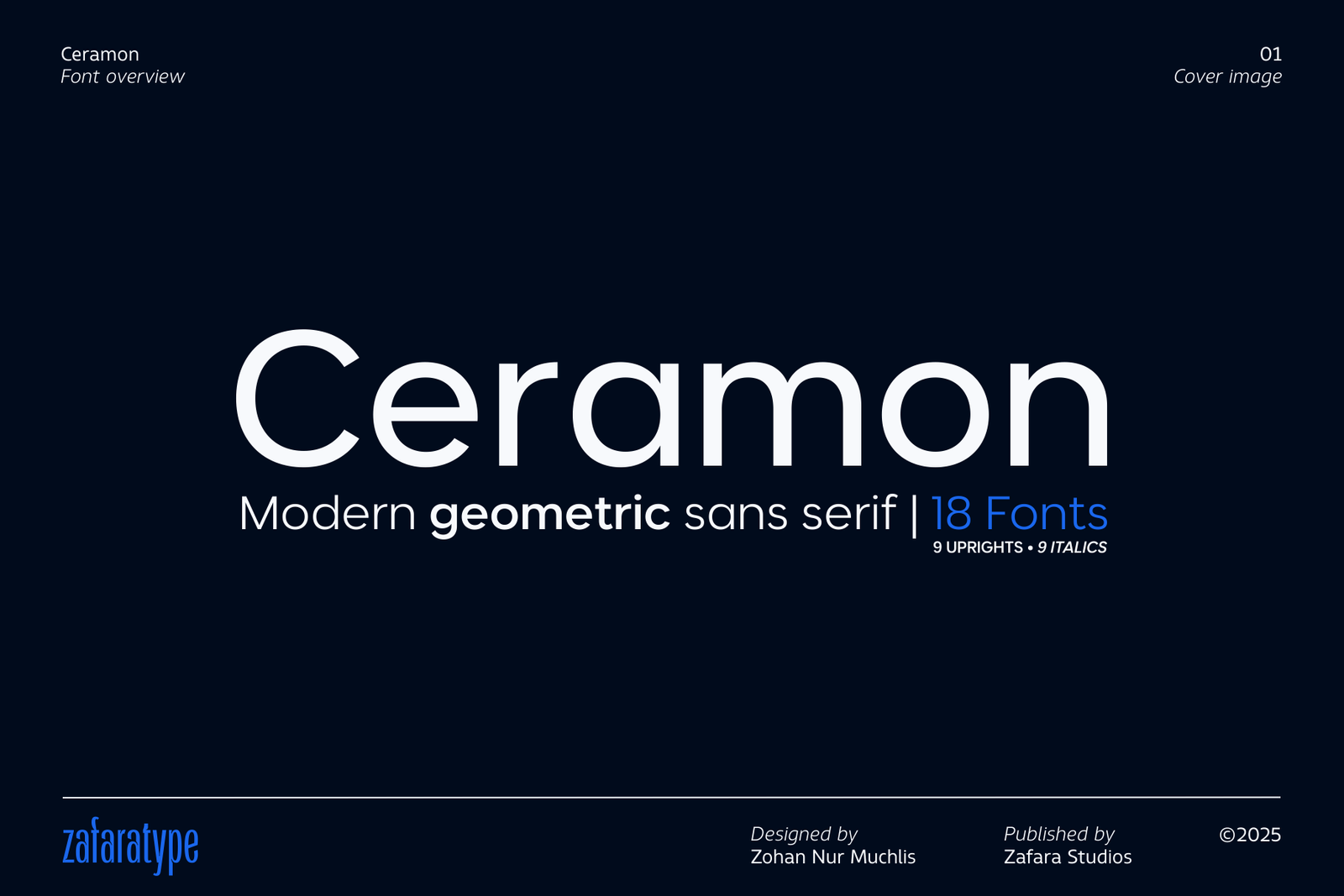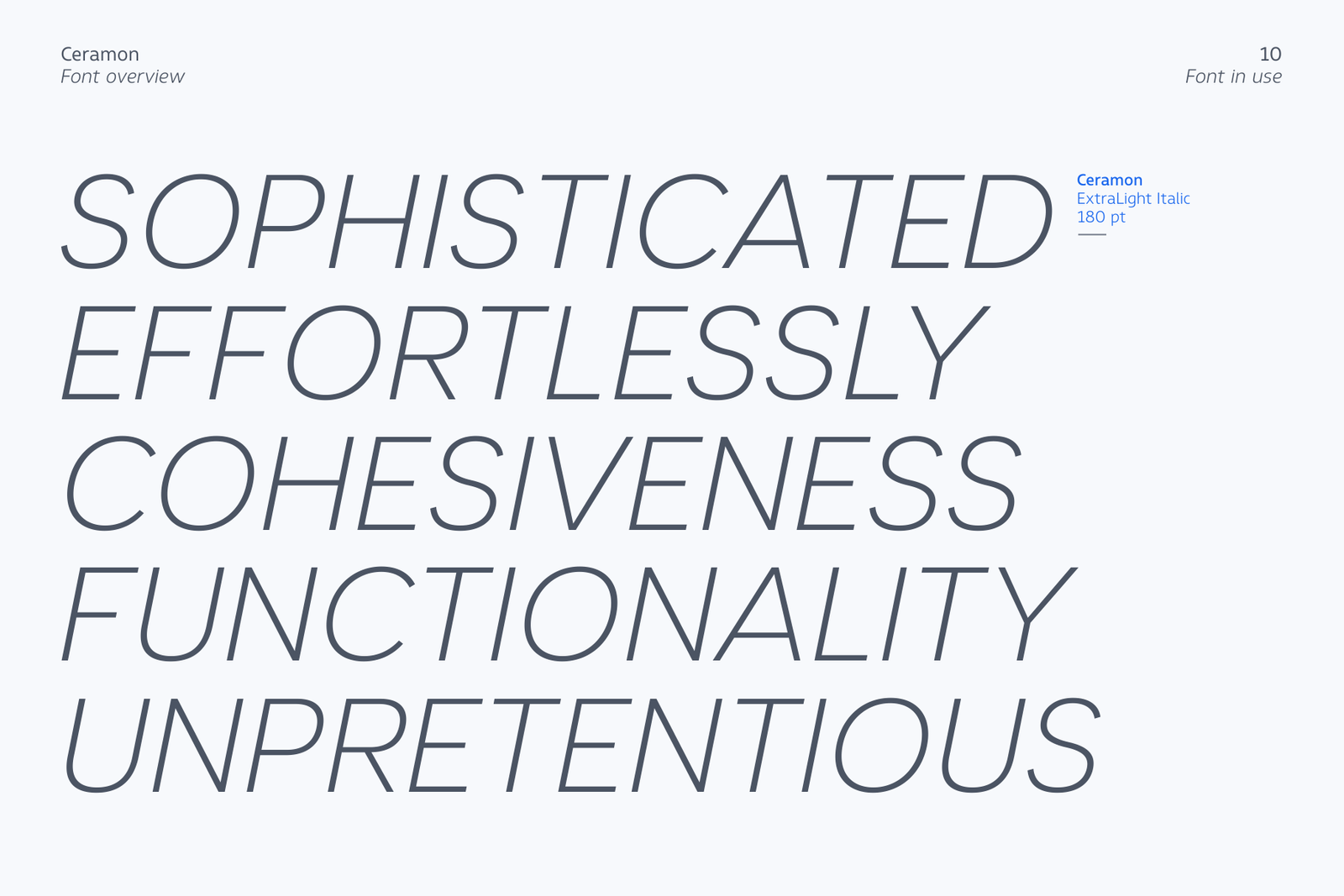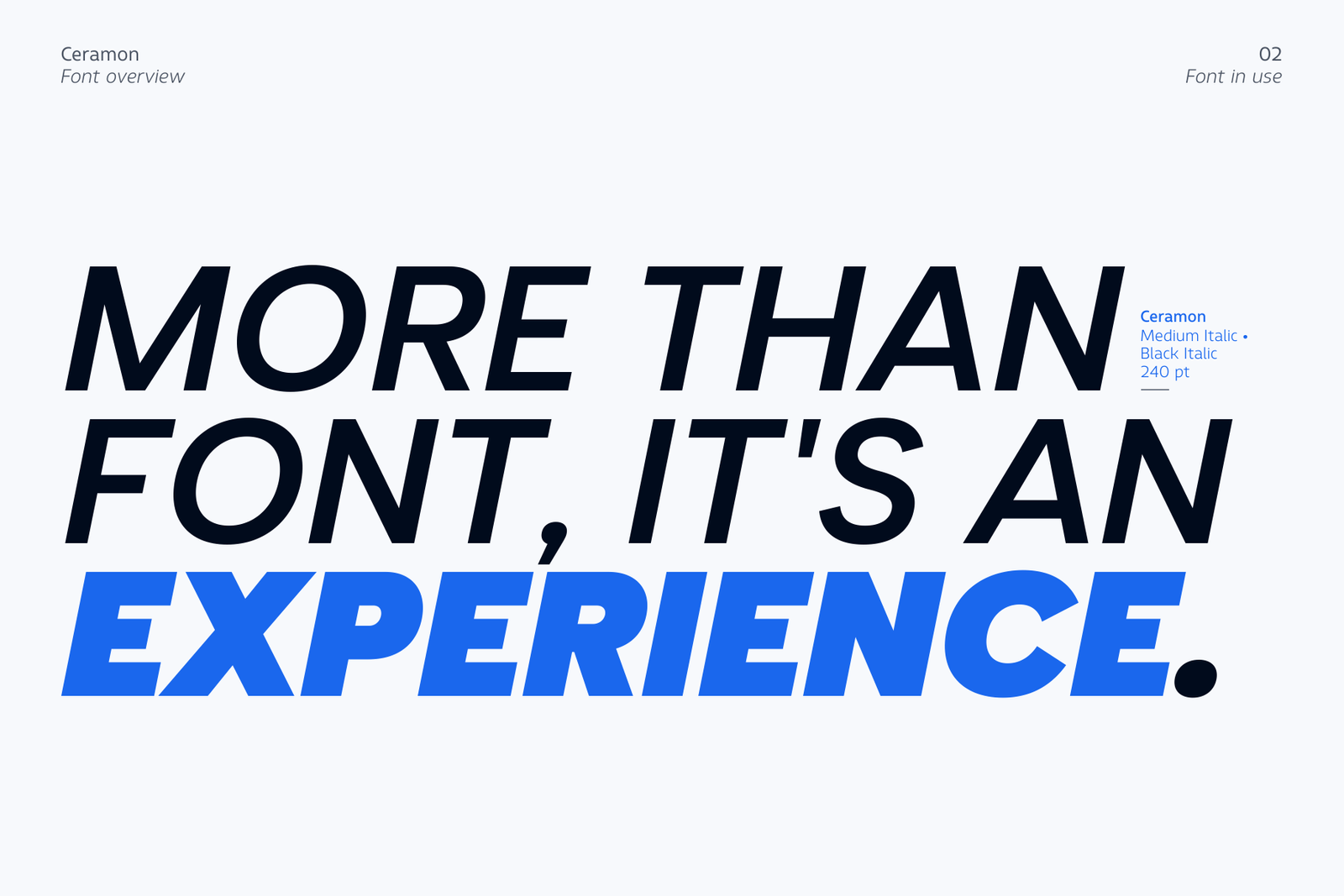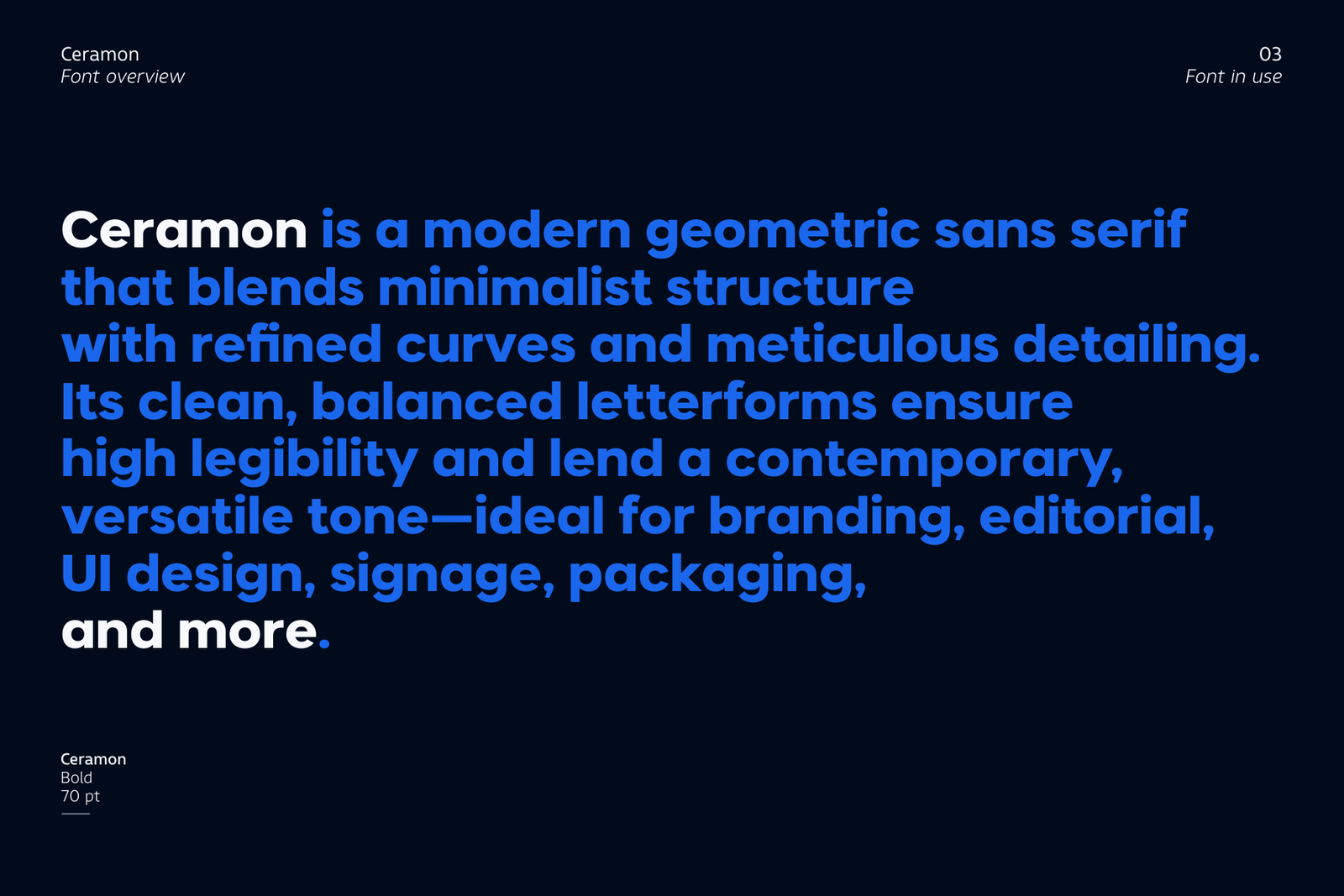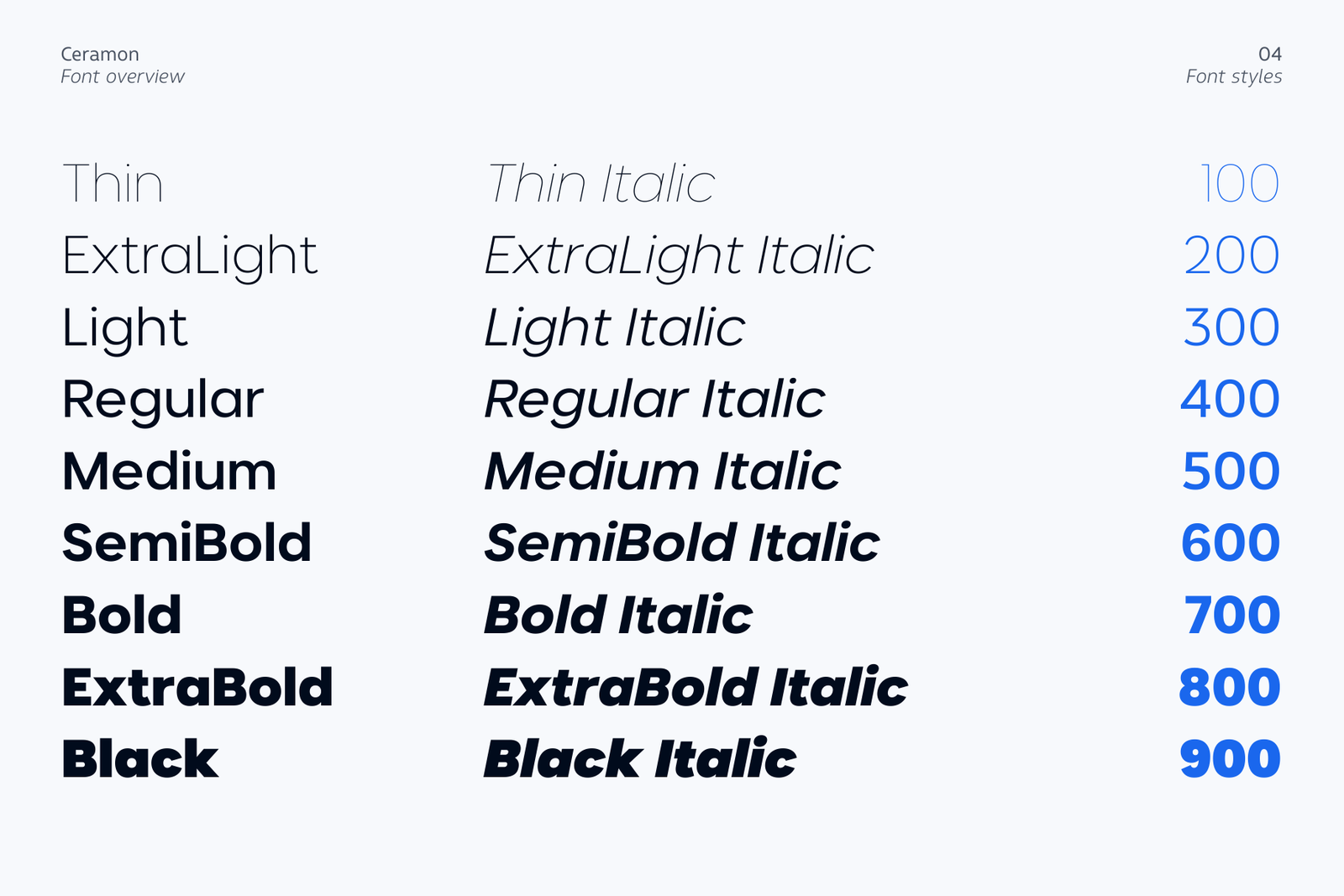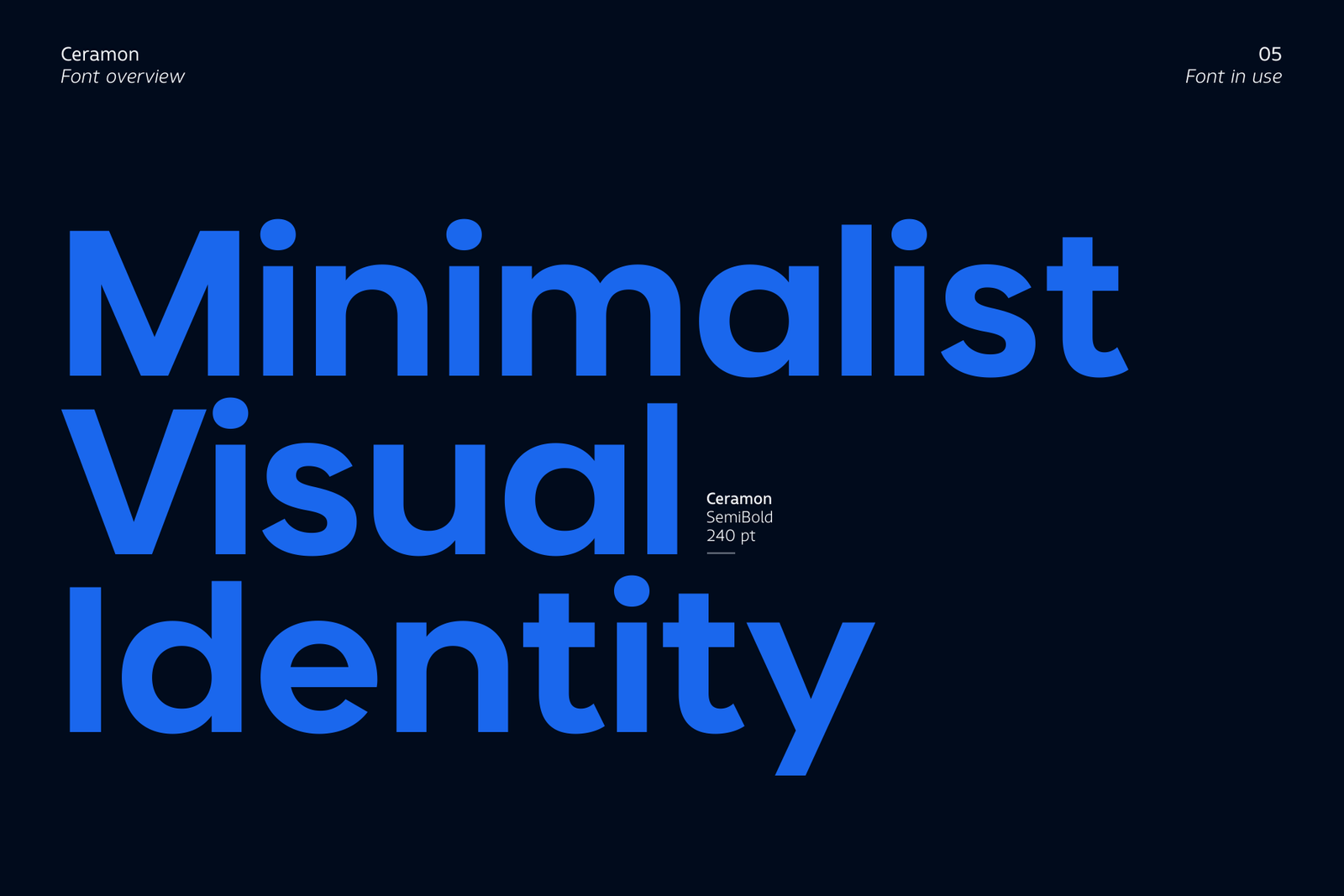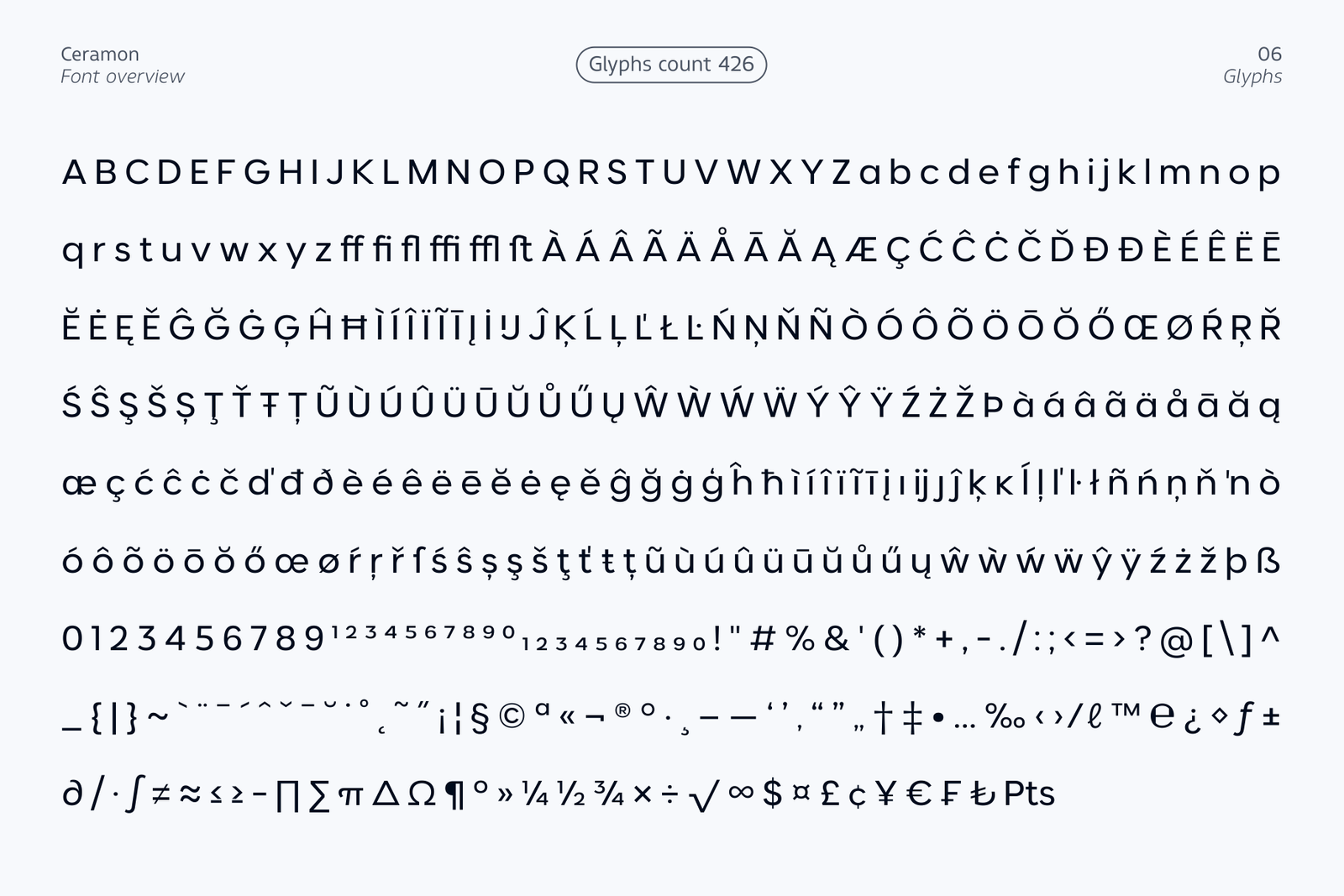
A cover image for the Ceramon font, a modern geometric sans serif typeface.
A bold headline reading "MORE THAN A FONT, IT'S AN EXPERIENCE" in Ceramon Medium Italic and Black Italic.
A description of the Ceramon font highlighting its uses for branding, UI design, and packaging.
A full list of the 18 font styles of the Ceramon family, from Thin to Black, with corresponding numeric weights.
A large-scale display of the words "Minimalist Visual Identity" in Ceramon SemiBold.
A full display of the Ceramon font's glyphs, including uppercase and lowercase letters, numbers, symbols, and special characters.
The word "Múltìlíñgūàl" displayed in Ceramon, followed by a list of supported languages.
A paragraph of text set in Ceramon Regular and ExtraLight, demonstrating its legibility at smaller sizes.
Various headlines and creative text snippets using different Ceramon font weights and styles.
The words "SOPHISTICATED EFFORTLESSLY COHESIVENESS FUNCTIONALITY UNPRETENTIOUS" in Ceramon ExtraLight Italic.
Ceramon is a modern geometric sans serif that blends minimalist structure with refined curves and meticulous detailing. Its clean, balanced letterforms ensure high legibility and lend a contemporary, versatile tone—ideal for branding, editorial, UI design, signage, packaging, and more.
Key Features:
• 18 styles: 9 uprights (Thin to Black) and 9 matching italics
• Extended Latin support
• 426 glyphs, including: Uppercase & lowercase, Punctuation & math symbols, Multilingual support, Case-sensitive forms, Standard ligatures, Localized forms, Ordinals, fractions, subscript & superscript, Historical forms
• Language Support: Supports 36 languages, including Afrikaans, Albanian, Basque, Bosnian, Catalan, Croatian, Czech, Danish, Dutch, English, Estonian, Faroese, Filipino, Finnish, French, Galician, German, Hungarian, Icelandic, Indonesian, Irish, Italian, Latvian, Lithuanian, Malay, Norwegian Bokmål, Polish, Portuguese, Romanian, Slovak, Slovenian, Spanish, Swahili, Swedish, Turkish, and Zulu.